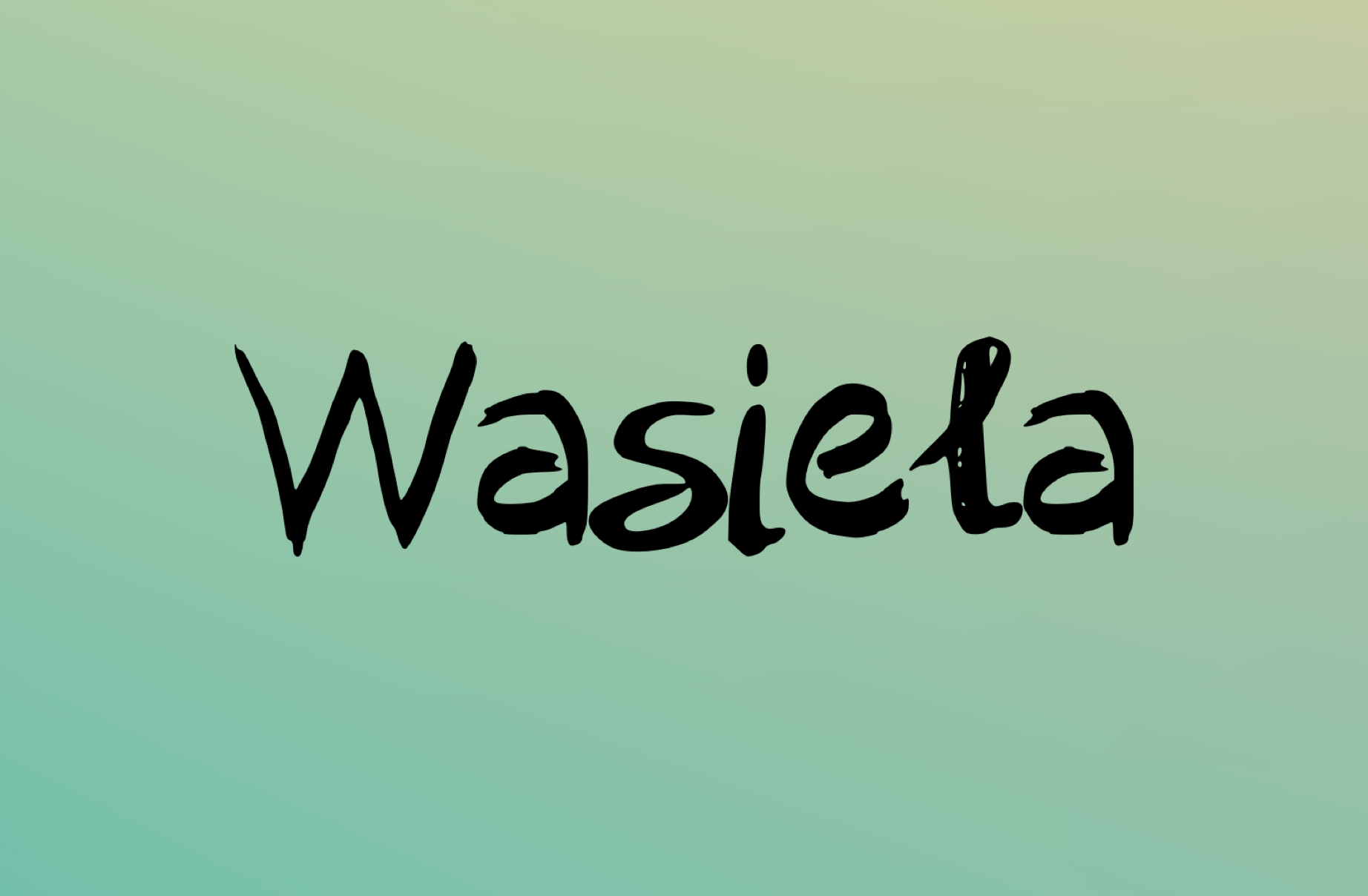
Wasiela Handwritten Script Font
Wasiela is a handwritten font. Ideal for logos, handwritten quotes, product packaging, header, poster, merchandise, social media and greeting cards
Basic Latin A-Z and a-z Numbers Punctuation